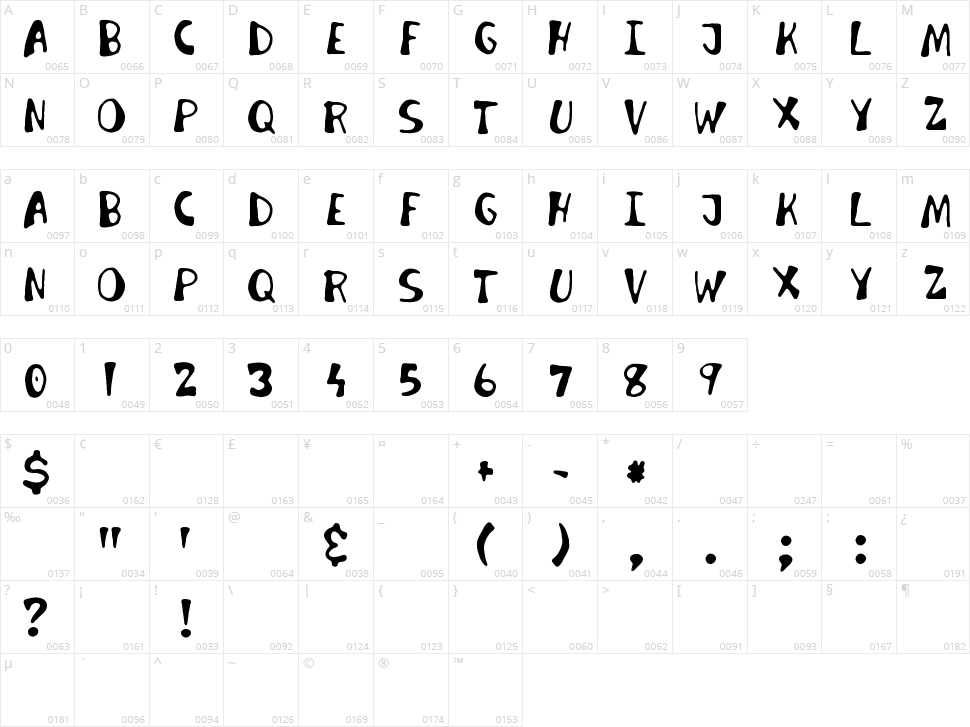
Invader Candy
INVADER CANDY
A TrueType Font by S. John Ross
Here's a very simple, friendly, bouncy sort of poster font floating somewhere in the realm between funky and groovy and goofy and cartoony (which, on the map, puts it just south of the river here in Austin). I built Invader Candy from hand-drawn doodles, smoothed it a bit digitally, and called it good.
Invader Candy is an all-caps poster font with letters, numerals, and a few assorted punctuation marks. Enjoy!